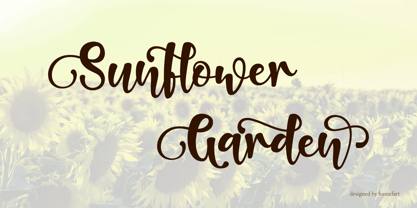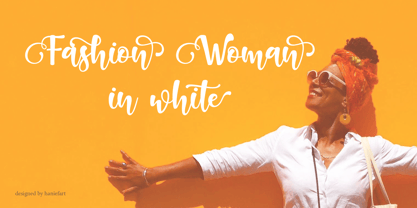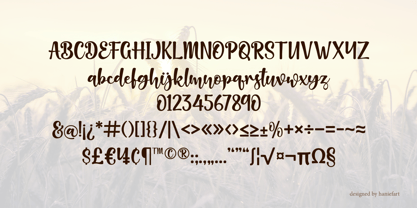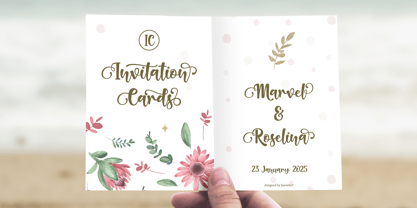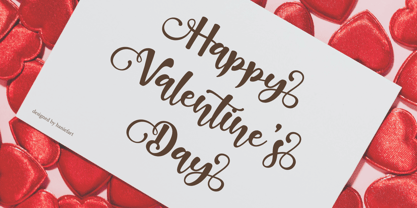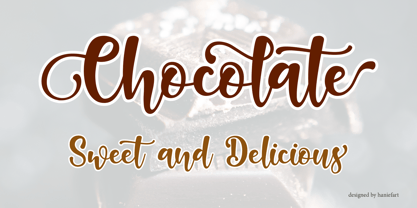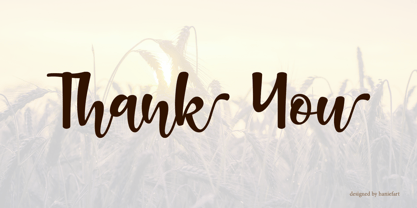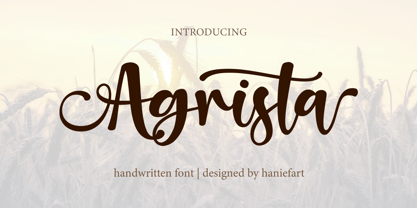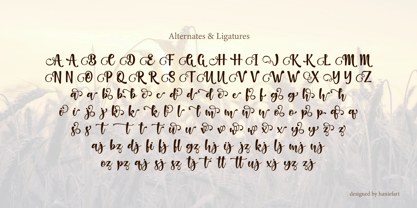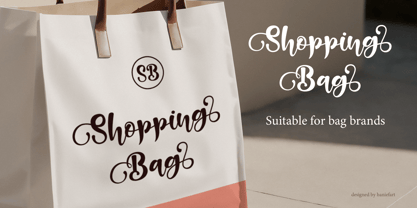
Agrista
by Haniefart
The Agrista Font Family was designed by Hanif Maulazi and published by Haniefart. Agrista contains 1 styles.
Dive into the artistic wonder of Agrista, a meticulously crafted handwritten typeface that brings authentic charm to your artistic creations. Agrista exudes a bespoke charm that is distinctive and alluring, expertly designed to add refinement to your masterpieces. This adaptable typeface intuitively blends with a variety of projects, exuding an alluring appeal. Whether you are redefining magazine style, designing eye-catching invitation cards, creating striking fabric prints, bringing vibrant logos to life, or crafting eye-catching flyers, Agrista’s unique charisma is your ally in pushing the boundaries of creativity. Unleash your unique expression of creativity with Agrista’s extraordinary charm.